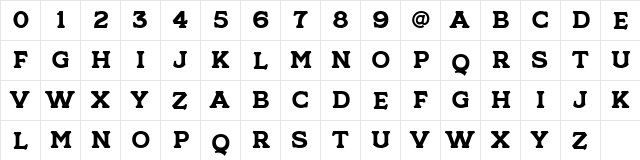
NS Champtone Serif Font Preview
| Foundry | Novi Souldado |
| Designer | Novi Ananda |
Design Context for NS Champtone Serif Typeface
NS Champtone Serif brings classic typographic sensibility to the table — its serifs and measured letterforms reflect centuries of print heritage.
Pro Tip: Set NS Champtone Serif with slightly loose tracking in headlines to let each letterform's detail read clearly at display sizes.